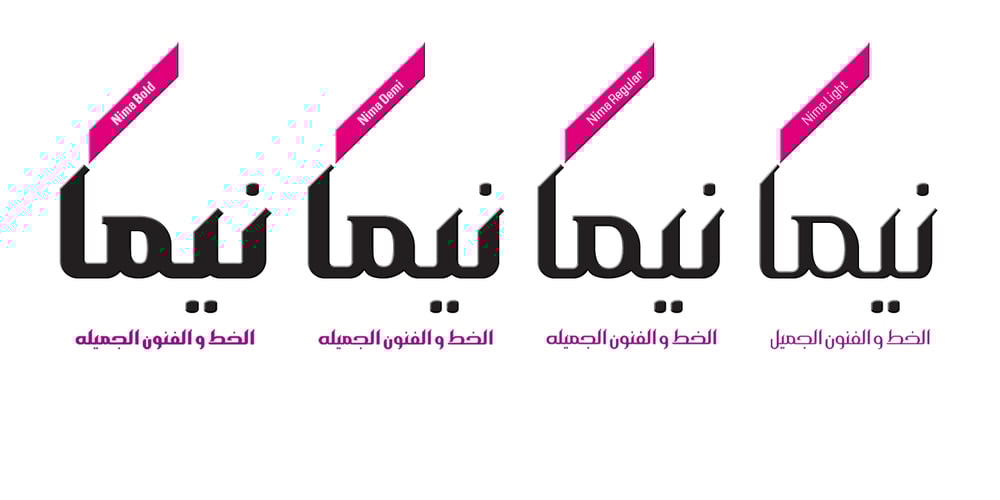
Nima Font Family was designed by Naghi Naghashian and published by Naghi Naghachian. Nima contains 4 styles and family package options. I dedicate this font family to Nima Yooshij (1896-1960), the great poet and innovator of Persian poetry. Nima is a new creation of Naghi Naghashian. Nima design fulfills the following needs: A. Explicitly crafted for use in electronic media fulfills the demands of electronic communication. B. Suitability for multiple applications. Gives the widest potential acceptability. C. Extreme legibility not only in small sizes, but also when the type is filtered or skewed, e.g., in Photoshop or Illustrator. Nima’s simplified forms may be artificial obliqued in InDesign or Illustrator, without any loss in quality for the effected text. D. An attractive typographic image. Nima was developed for multiple languages and writing conventions. Nima supports Arabic, Persian and Urdu. It also includes proportional and tabular numerals for the supported languages. E. The highest degree of calligraphic grace and the clarity of geometric typography. This typeface offers a fine balance between calligraphic tradition and the Roman aesthetic common in Latin typography.